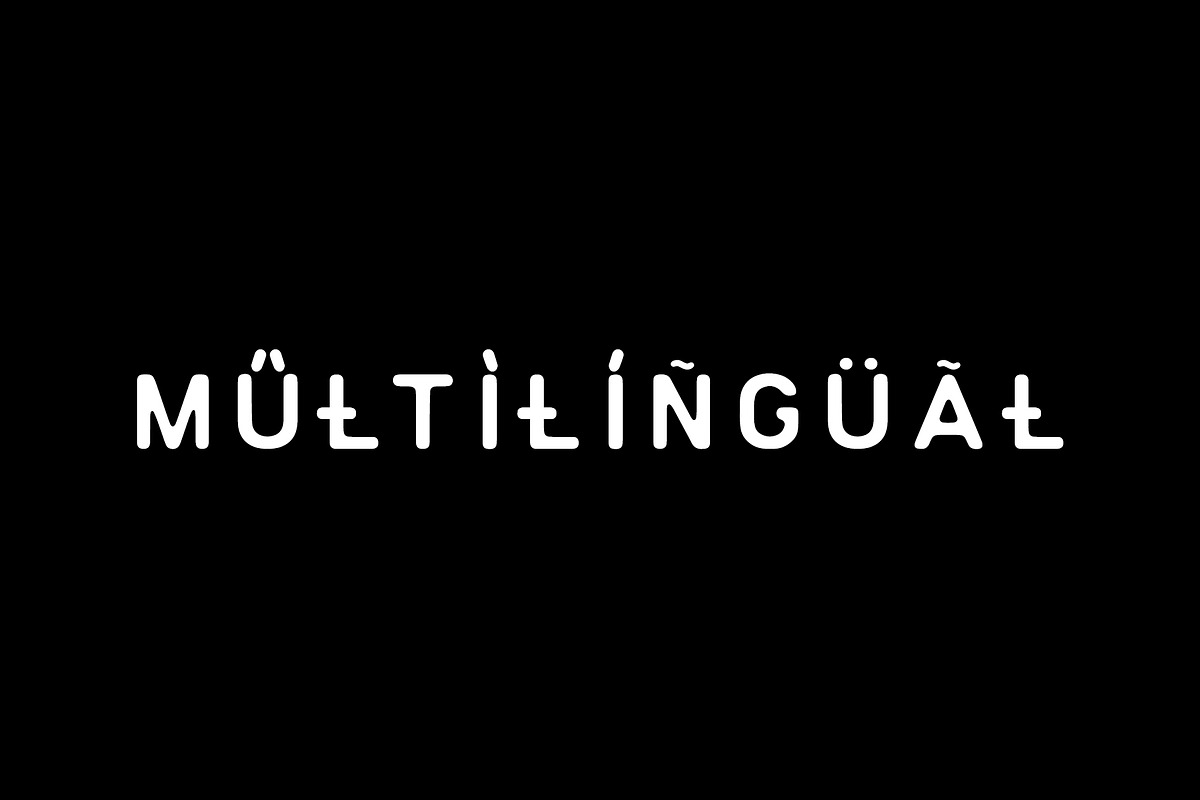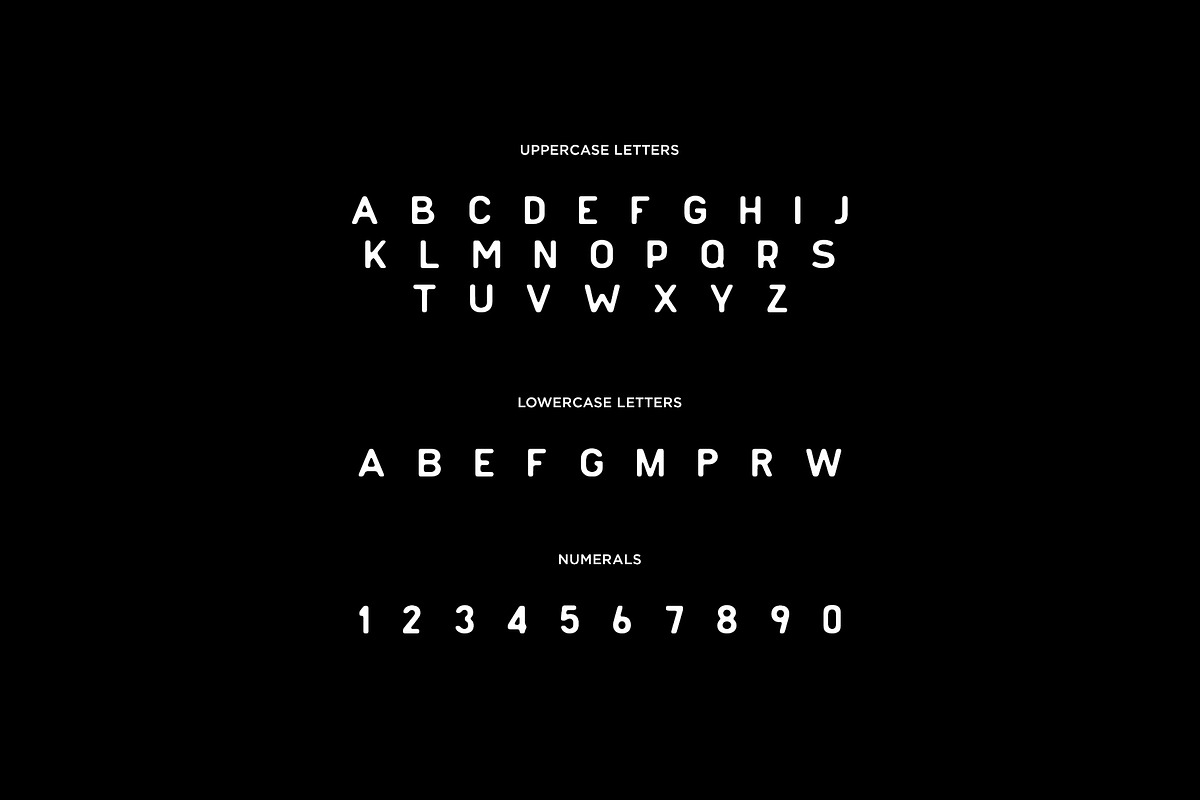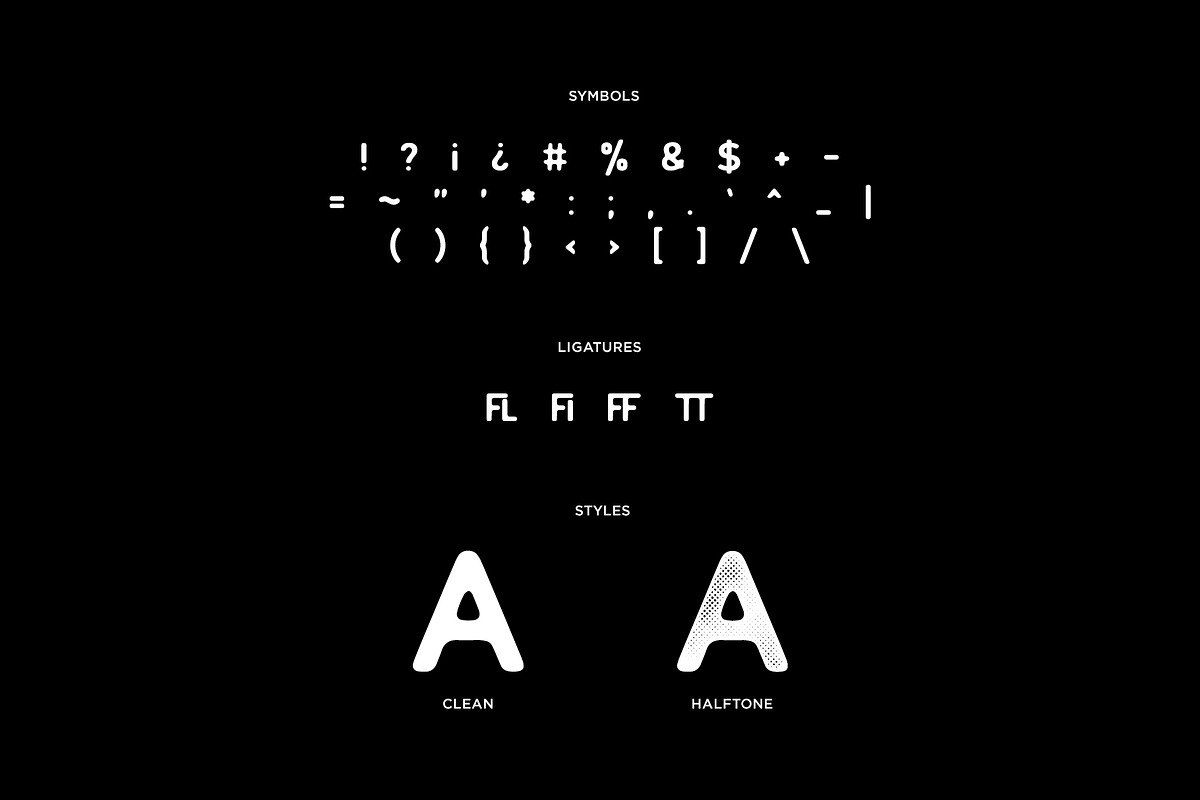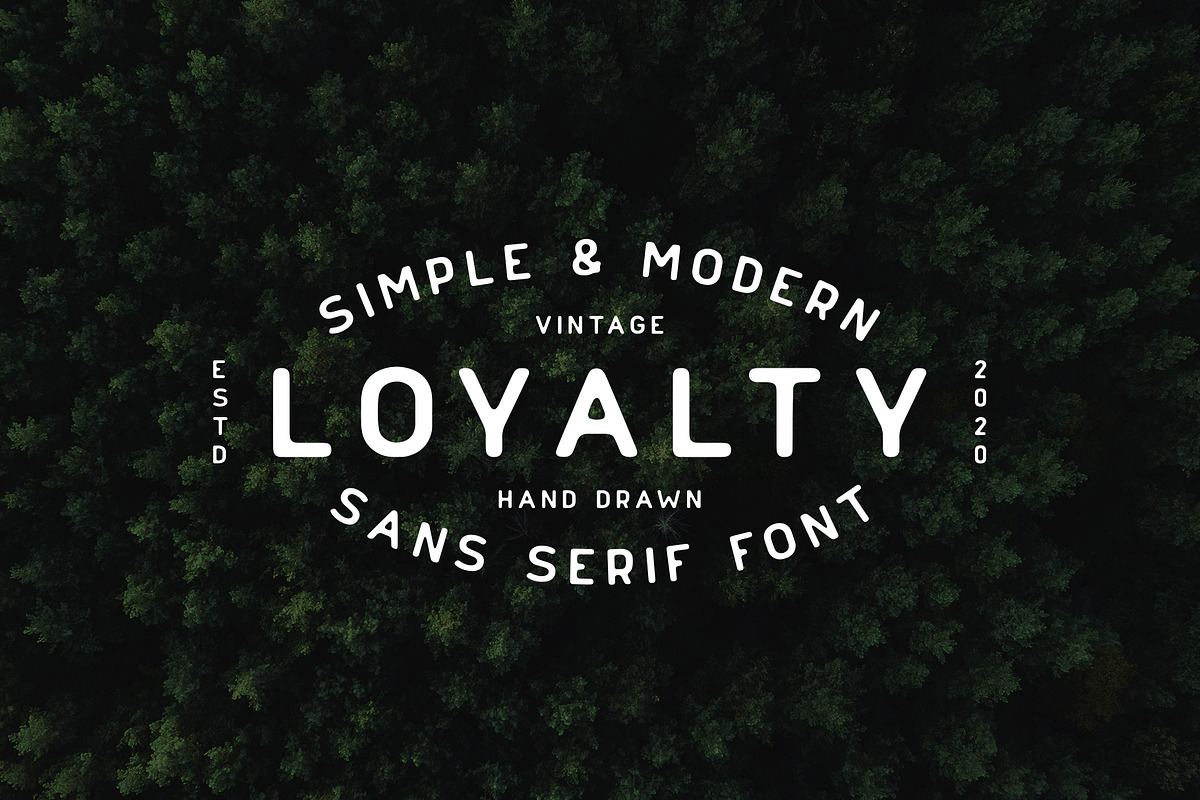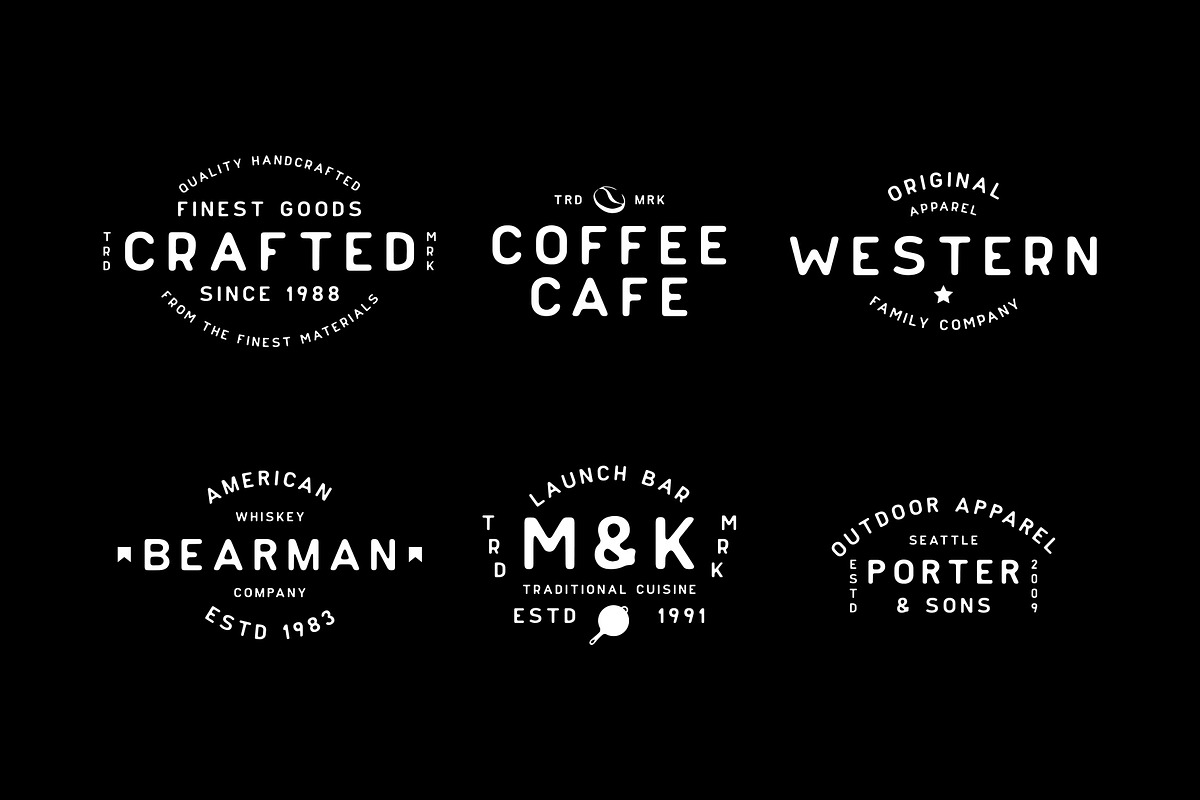
Loyalty Font
Loyalty is a simple & modern hand drawn font. The font has a vintage style that can be used for prints on t-shirts, hoodies, cups, shirts, stickers etc. This font includes letters, numbers, symbols & punctuation, foreign language accents.
2 Versions: Regular & Halftone
Symbols & Punctuation
Loyalty Font by Mikhail Kitsune fits naturally into Branding, posters, packaging, typography.